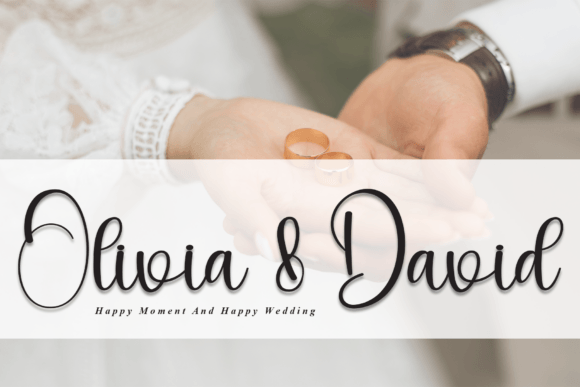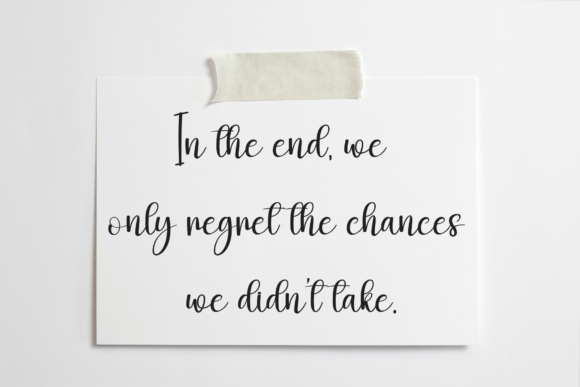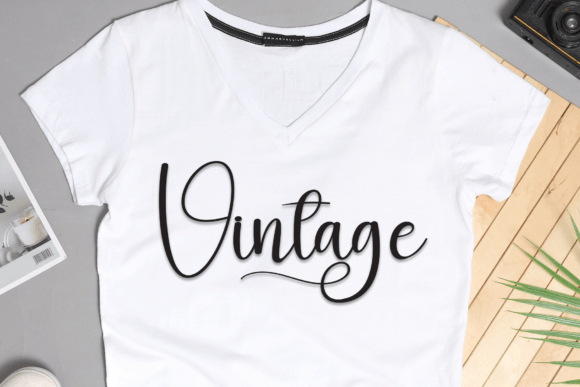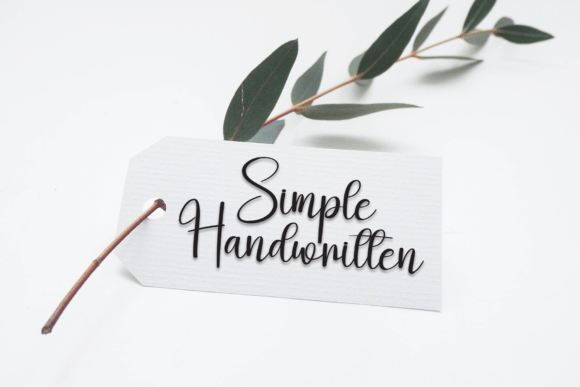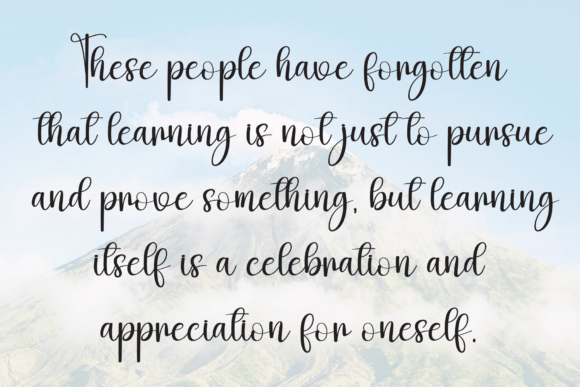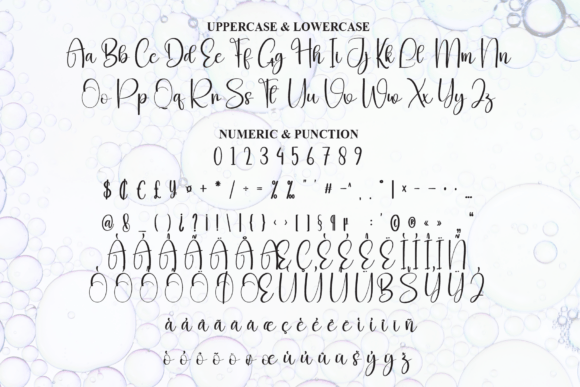
Bubly Font: Adding a Playful Touch to Your Designs
In the world of typography, fonts play a crucial role in conveying the tone and personality of a design. If you’re looking for a font that exudes fun, friendliness, and playfulness, then Bubly Font is an excellent choice. This handwritten font is perfect for designers and crafters who want to add a personal touch to their creations.
What is Bubly Font?
Bubly Font is a fun, handwritten font with playful curves and a cheerful style. Its unique charm lies in its soft, brush-written appearance, which gives it a friendly and lively feel. The font’s casual and approachable vibe makes it ideal for designs that require a warm and inviting tone.
Characteristics of Bubly Font
- Handwritten style: Bubly Font has a distinctive handwritten look, which sets it apart from more formal and traditional fonts.
- Playful curves: The font features playful curves and irregularities that give it a lively and dynamic feel.
- Soft brush appearance: The font’s soft brush-written appearance gives it a friendly and approachable tone.
- Cheerful style: Bubly Font is designed to evoke a sense of happiness and joy, making it perfect for designs that require a positive and uplifting tone.
Use Cases for Bubly Font
Bubly Font is versatile and can be used in a variety of design projects, including:
- Invitations: Whether it’s a birthday party, wedding, or baby shower, Bubly Font is perfect for creating playful and inviting invitations.
- Posters: The font’s bold and cheerful style makes it ideal for creating eye-catching posters for events, promotions, or advertisements.
- Social media graphics: Bubly Font can add a personal touch to social media graphics, such as Facebook posts, Instagram stories, and Twitter headers.
- Branding and packaging: The font’s friendly and approachable vibe makes it suitable for branding and packaging designs that require a more casual and playful tone.
Benefits of Using Bubly Font
Using Bubly Font in your designs offers several benefits, including:
- Unique and distinctive look: Bubly Font’s playful curves and soft brush appearance set it apart from more traditional fonts.
- Emotional connection: The font’s cheerful and friendly style can help create an emotional connection with your audience.
- Versatility: Bubly Font can be used in a variety of design projects, from invitations to posters and social media graphics.
- Ease of use: The font is easy to read and can be used in both digital and print designs.
Bubly Font is a fun and playful font that can add a personal touch to your designs. Its unique charm, cheerful style, and soft brush appearance make it perfect for designs that require a warm and inviting tone. Whether you’re a designer or crafter, Bubly Font is an excellent choice for creating engaging and memorable designs.